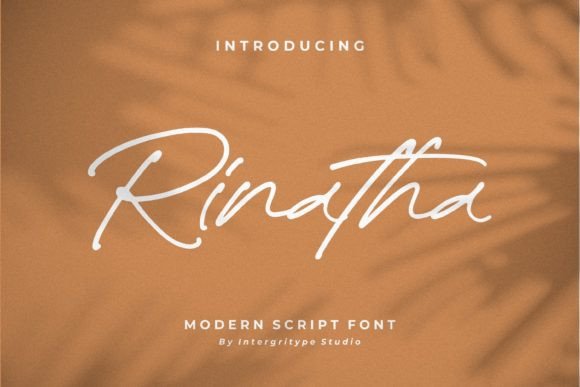
Behold the captivating Rinatha Font, a stunning masterpiece that will infuse your designs with an aura of elegance and charm. This exquisite script font, hailing from the creative genius of integritypestudio, offers a world of possibilities for your projects, inviting you to explore the realm of visual brilliance.
Whether you're crafting logos that demand attention, branding that captivates, or homewares designs that exude sophistication, Rinatha Font stands as your steadfast companion. Its versatility extends to product packaging, mugs adorned with heartfelt quotes, posters that speak to the soul, and shopping bags that carry a touch of luxury.
Adorn your T-shirts with Rinatha's enchanting curves, allowing your words to dance across the fabric with grace. Transform book covers into portals to enchanting worlds, etching titles with an air of mystery and wonder. Fashion business cards that leave a lasting impression, wedding invitations that whisper of romance, and greeting cards that convey heartfelt sentiments.
Labels, photography, and watermarks all come alive under the spell of Rinatha Font's alluring strokes, adding a touch of magic to every project. Special events bloom with newfound splendor, as this font elevates invitations and decorations to new heights of elegance.
With Rinatha Font, you'll unlock a font that's more than just a collection of characters; it's an artistic muse, a catalyst for creativity. Unleash your imagination and witness the transformation as your designs transcend the ordinary, captivating hearts and igniting minds.